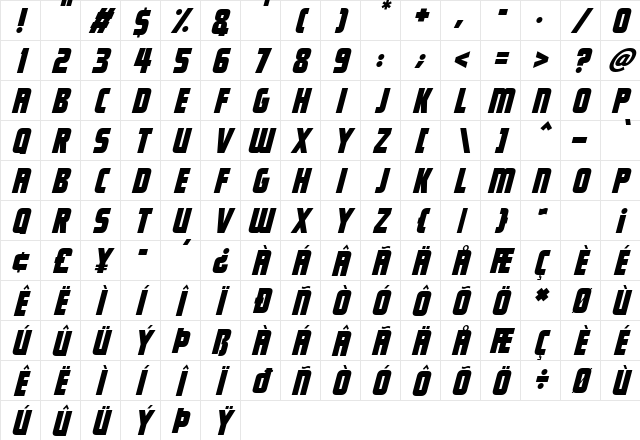
Headliner is a composed and adaptable typeface that performs quietly and consistently across a wide range of design contexts. The slanted form adds forward momentum and visual energy.
Pro Tip: Use Headliner for emphasis, pull quotes, and subheadings where its slanted energy can add rhythm to the layout.